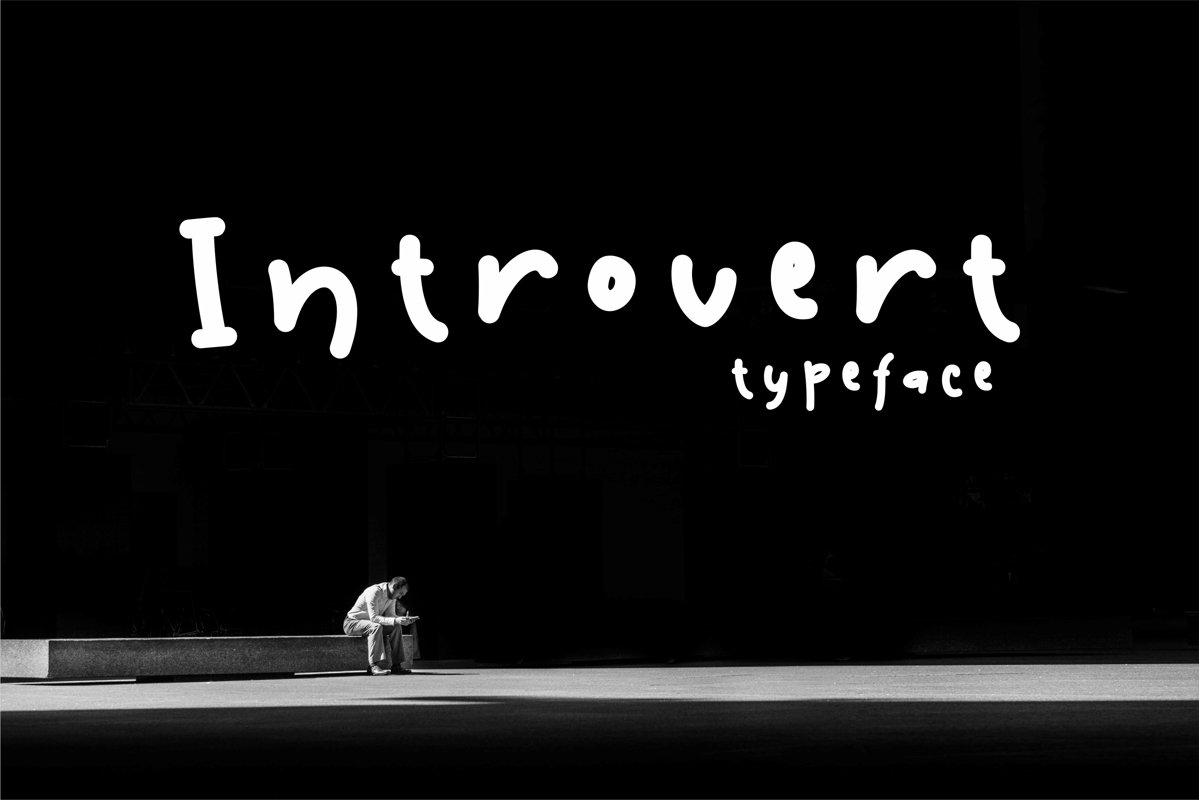
Introvert
Introvert typeface is a simple natural handwritten font. it is fits to express many feelings. like sad, happy, love etc. it also can use as a branding. poster, advertising, social media, quotes etc.
introvert typeface complete with stylistic set alternate.